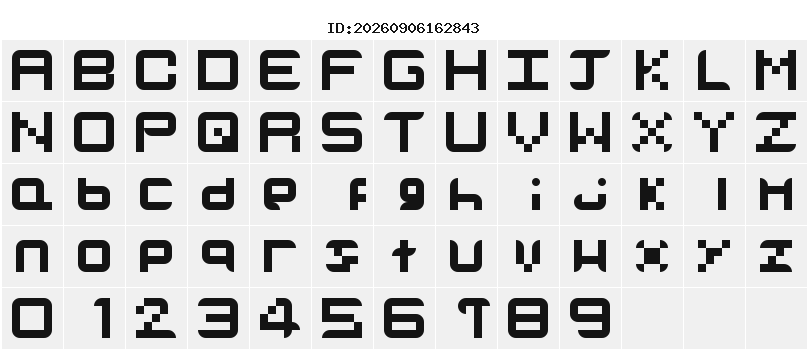
TVGlobeHD Preview
• Font Name: TVGlobeHD
• Font ID: FontStruct TVGlobeHD
• Full Font Name: TVGlobeHD Regular
• PostScript Name: TVGlobeHD
• Character Count: 99
• Designer: TVGlobeHD
• Description: ‚ÄúTVGlobeHD‚Äù was built with FontStruct
About TVGlobeHD.ttf
TVGlobeHD.ttf is a modern, elegant sans-serif font designed for ultimate readability and visual harmony. Perfect for branding, headlines, web design, and print materials.